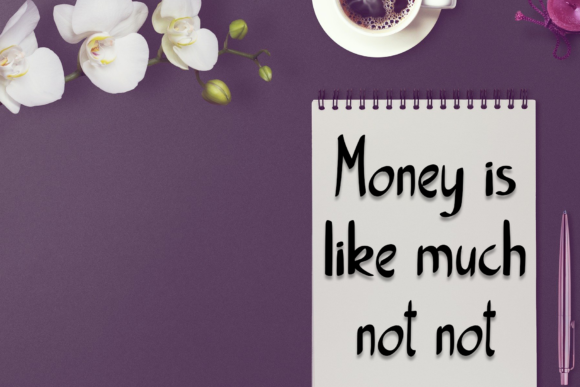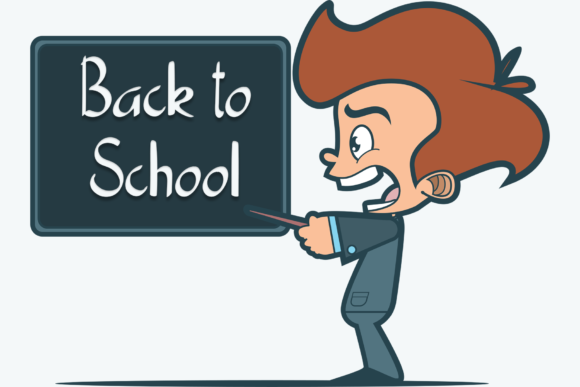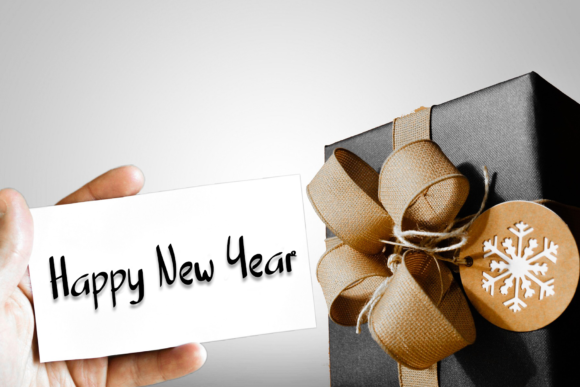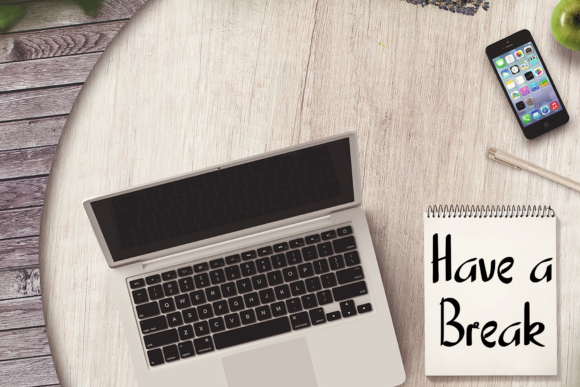
Espresso Font
About Espresso Font
“Espresso” is a genuine and delicate handwritten font that captures the essence of romance and personalization. With its dainty and joyful appearance, this font is a perfect choice for adding an intimate and heartfelt touch to various design projects.
The delicate strokes and intricate details of “Espresso” make it an ideal font for writing wedding invitations. Its genuine and romantic feel will set the tone for a memorable and special event, conveying the love and excitement of the occasion to your guests.
When used for cards, “Espresso” adds a touch of elegance and charm to your messages. Whether it’s a heartfelt note, a birthday card, or a thank-you card, the font’s delicate and genuine nature will enhance the sentiment and make your words even more meaningful.
“Espresso” is well-suited for any design that aims to evoke a personal connection or a sense of intimacy. It can be used to create personalized gifts, such as custom labels, monograms, or keepsakes, adding a unique and special touch to each item.
The font’s delicate and joyful qualities also make it a wonderful choice for creating decorative elements in home décor, such as wall art, framed quotes, or decorative signage. Its genuine and romantic vibe will infuse your space with warmth and character.
In summary, “Espresso” is a genuine and delicate handwritten font that brings a dainty and joyful touch to your designs. Whether you’re working on wedding invitations, cards, personalized gifts, or home décor, this font will add a romantic and personalized feel, making your projects truly special and memorable.